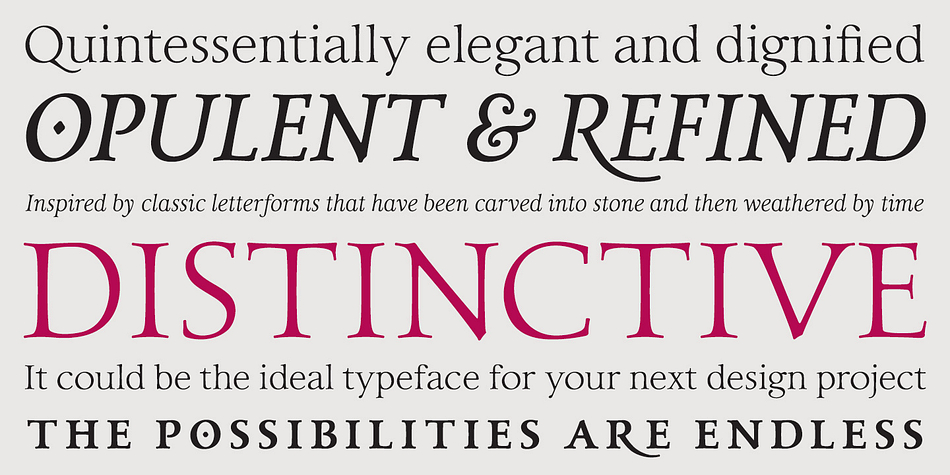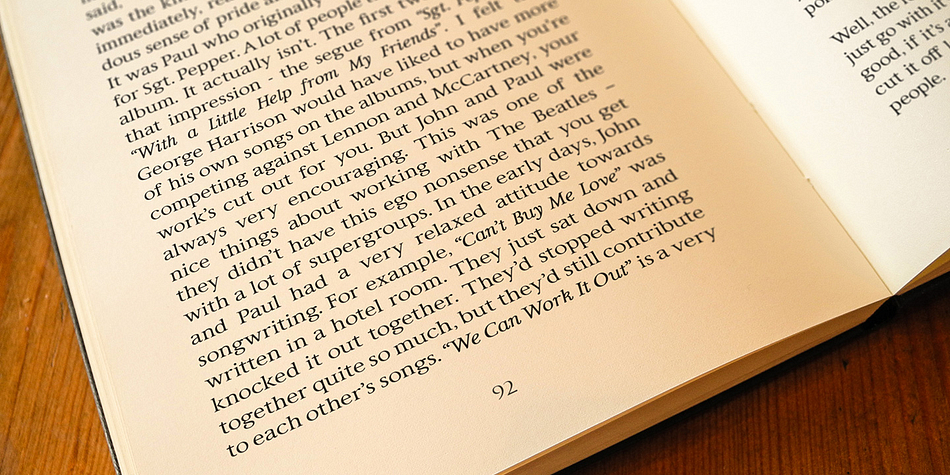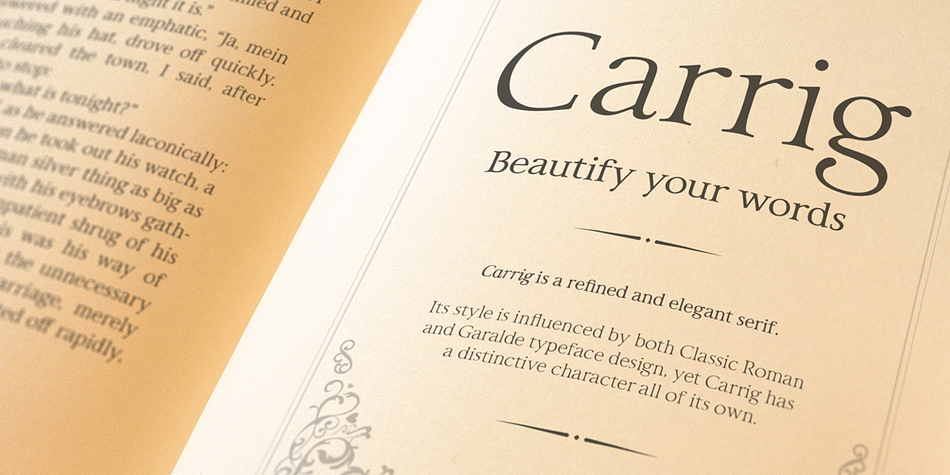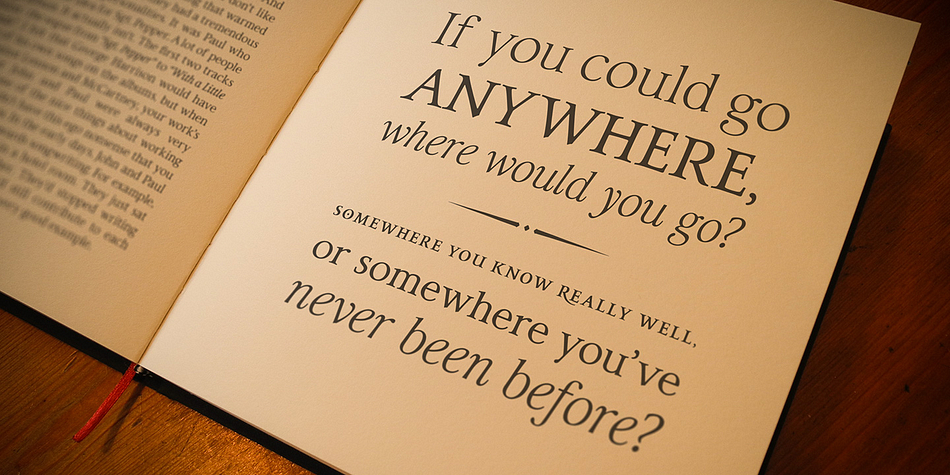
Designed by Paulo Goode, Carrig Basic is a serif and display serif font family. This typeface has five styles and was published by Paulo Goode.
Carrig is a refined and elegant serif. Its style is influenced by both Classic Roman and Garalde typeface design, yet Carrig has a distinctive character all of its own. Carrig will appear instantly familiar and friendly and could well be the perfect display typeface for those designers seeking to convey a message with a distinctive and prestigious air.
Carrig includes stylistic alternates for /O/Q/R/U/ as well as an alternative bullet and 2 line break dingbat characters.
Carrig was first released in 2015. In 2017, Carrig was redrawn from scratch and renamed Carrig Basic. Please be sure to check the extended version of this family – Carrig Pro.